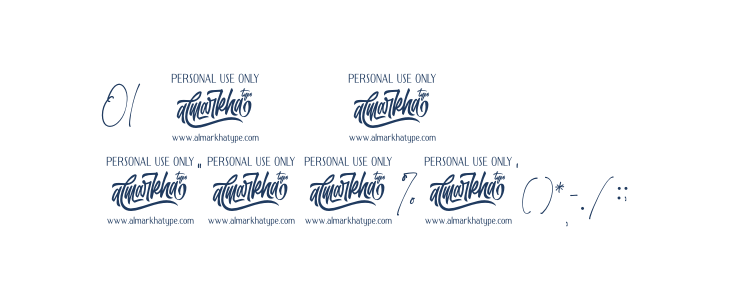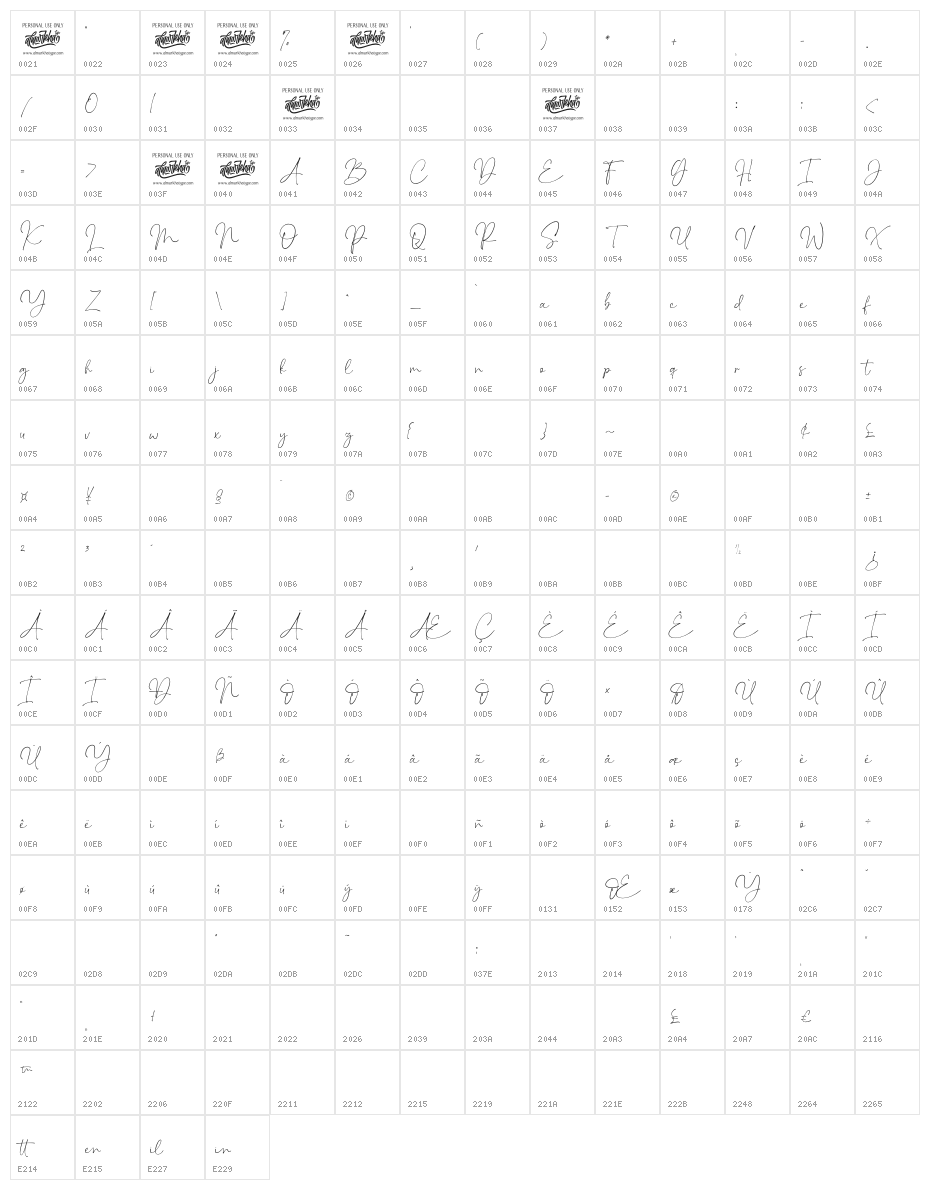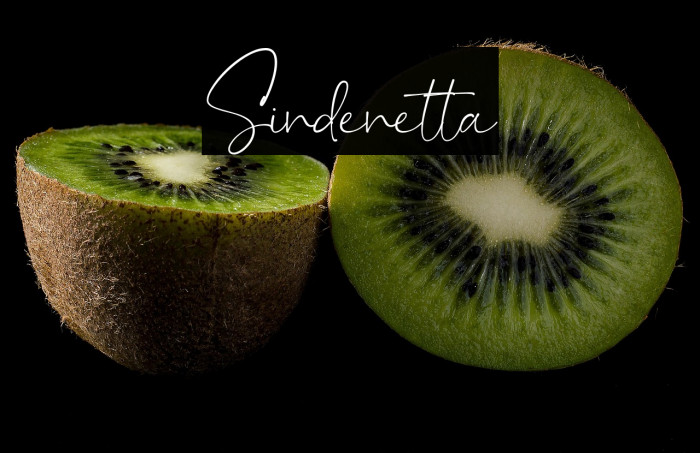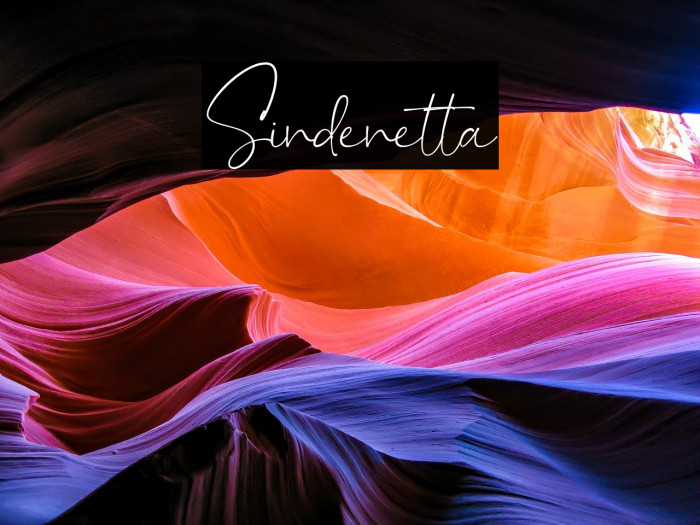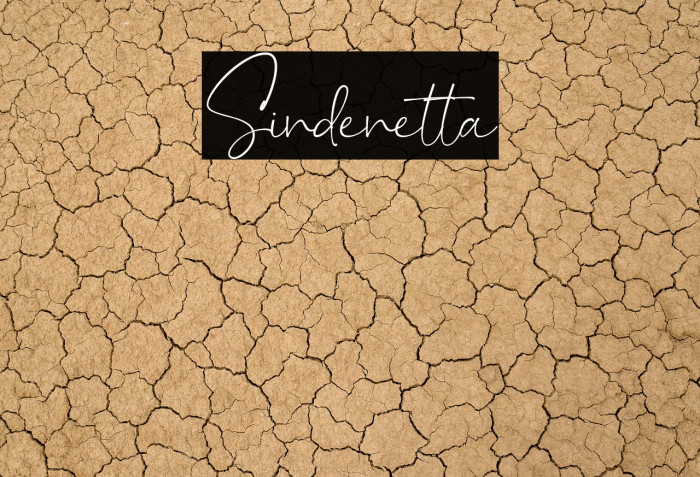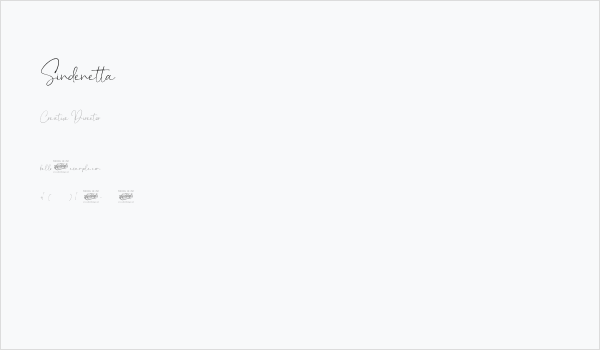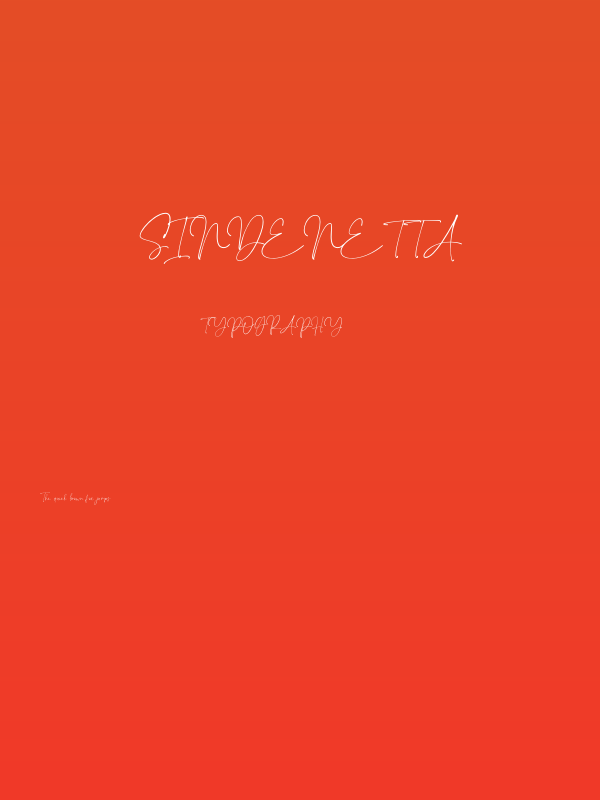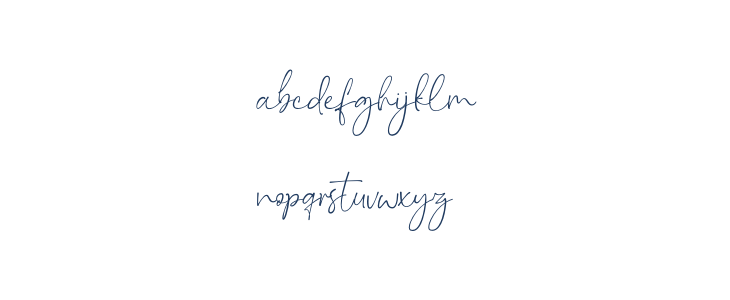
Sindenetta Font
Sindenetta Description
This font features an elegant, flowing script style with a handwritten appearance. The uppercase letters are characterized by their tall, sweeping ascenders and descenders, creating a sense of movement and grace. The lowercase letters maintain a consistent style, with smooth curves and a slightly playful touch. The numerals and special characters are designed to complement the overall aesthetic, ensuring a cohesive look. This font's delicate lines and artistic flair make it suitable for projects that require a personal, sophisticated touch.
| Use Case | Logos, Invitations, Personal Branding |
| Proposed Projects | Ideal for wedding invitations, greeting cards, personal branding, and elegant logos. |